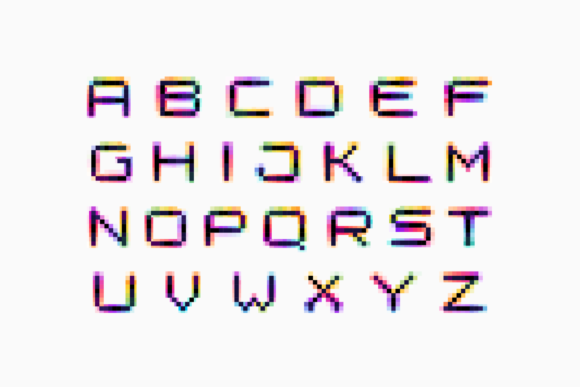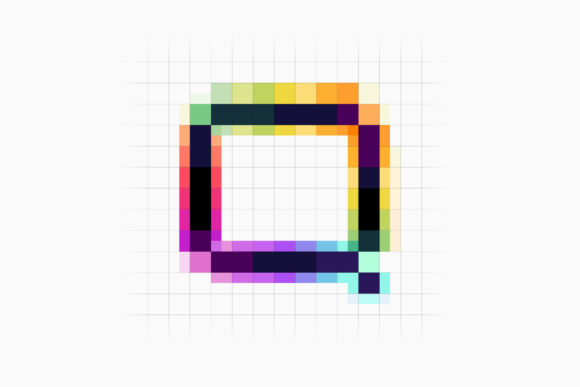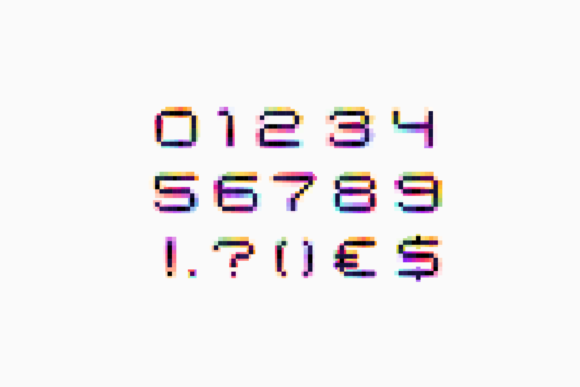
Neo Pixel Font
Do you need a glitch distorted pixel font with a color shift effect? This vector font is perfect to use in your vibrant nightlife labels, retro video game screens, colorful electronic identity, etc.Note! This product is a color font (Opentype-SVG) and is compatible with PhotoShop, Illustrator, Silhouette, and Inkscape. The OTF and TTF files of this product are not compatible with Cricut. For more information on how to use this type of font please check our Ultimate Font Guide .